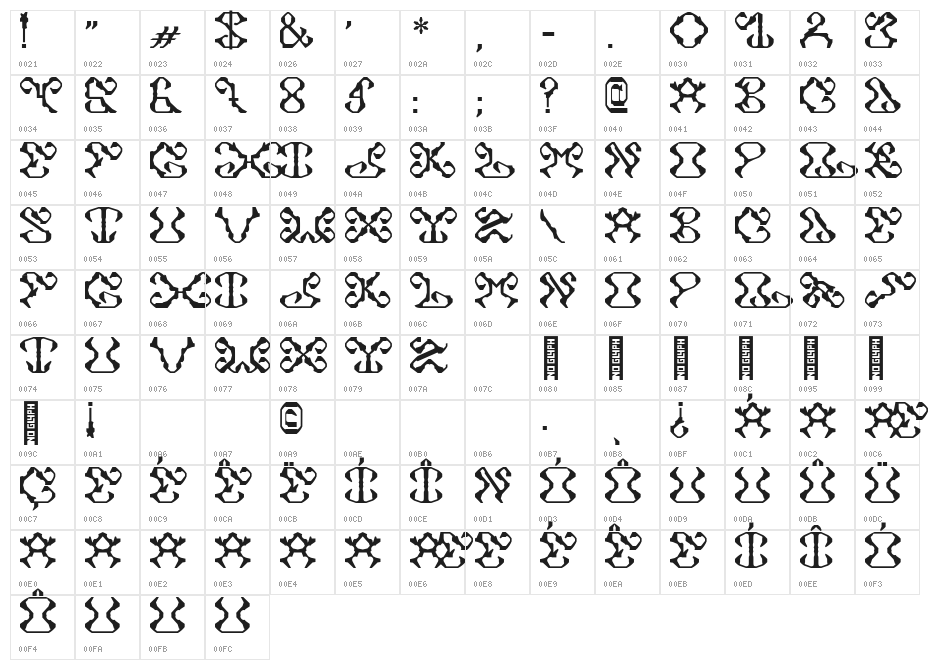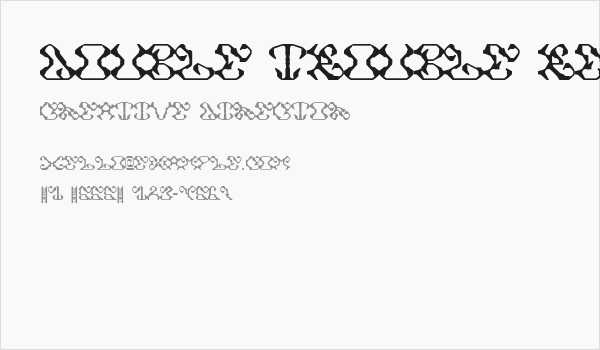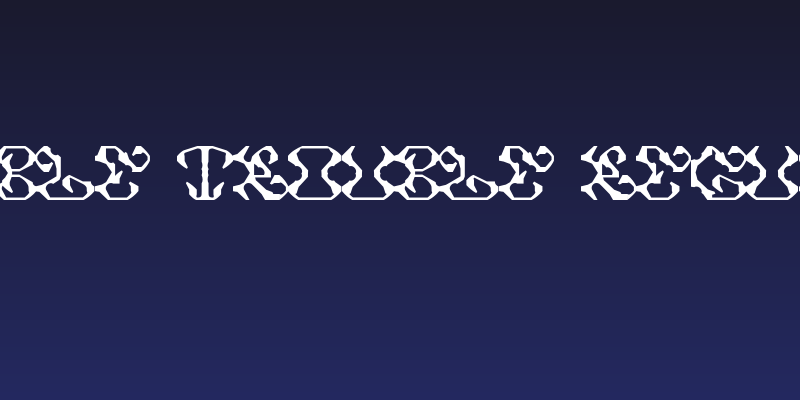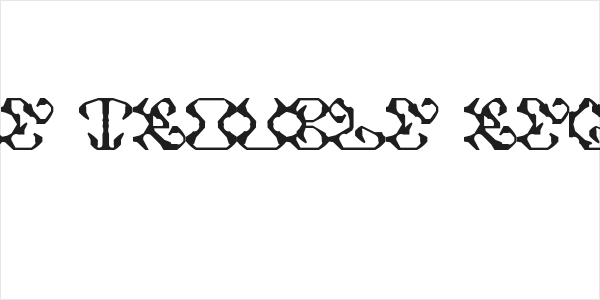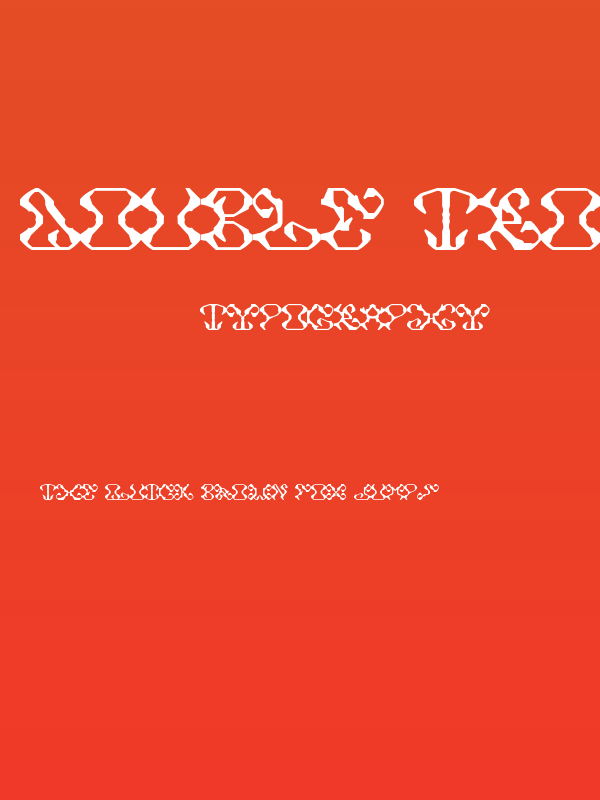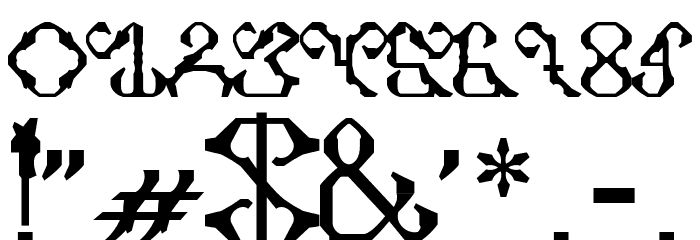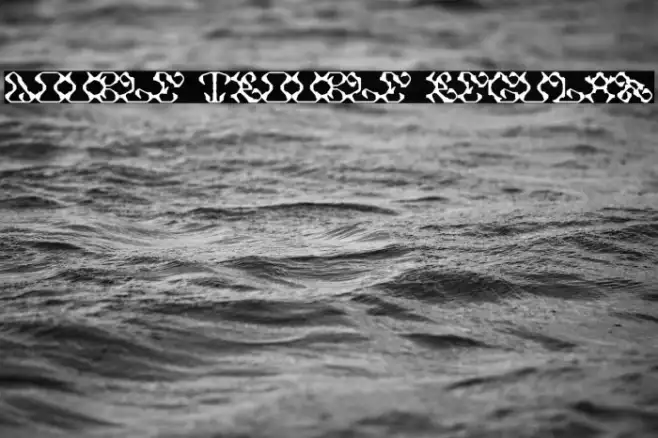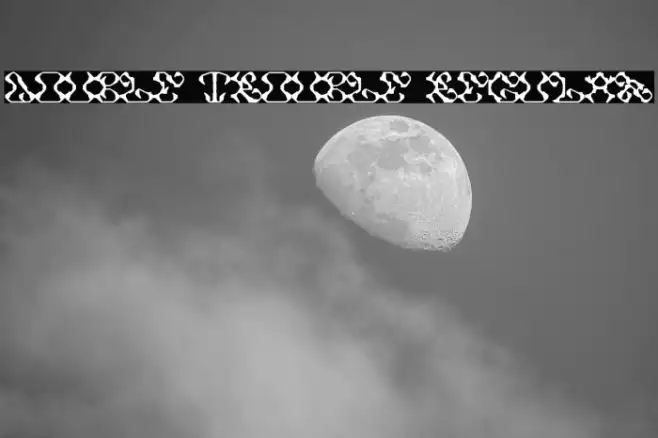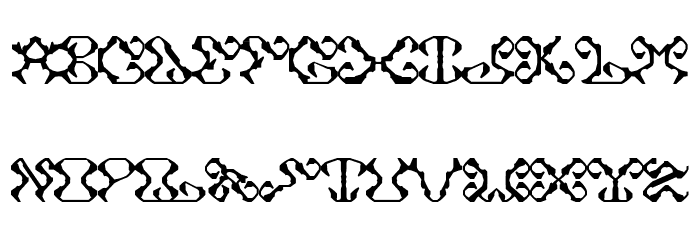
DOUBLE TROUBLE Regular Font
DOUBLE TROUBLE Regular Description
This font features an intricate and highly decorative style, characterized by its complex geometric patterns and interlocking shapes. The letters are formed with a series of loops and curves, creating a sense of movement and fluidity. The bold and thick strokes give it a strong presence, while the unique design elements make it stand out as a display font. Each character is distinct, yet they all share a cohesive aesthetic that ties the entire set together. The font's elaborate style makes it suitable for creative and artistic projects where a bold statement is desired.
| Proposed Projects | Ideal for posters, album covers, branding, and any project requiring a striking and artistic typeface. |